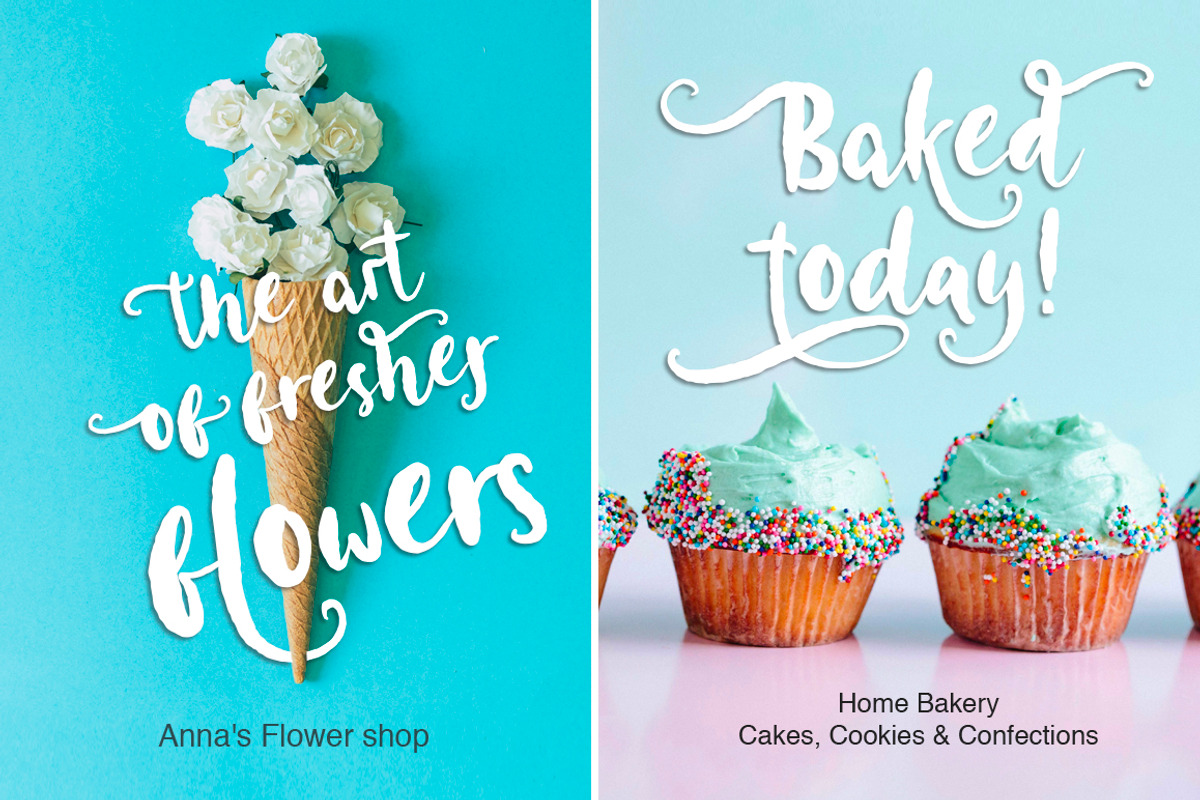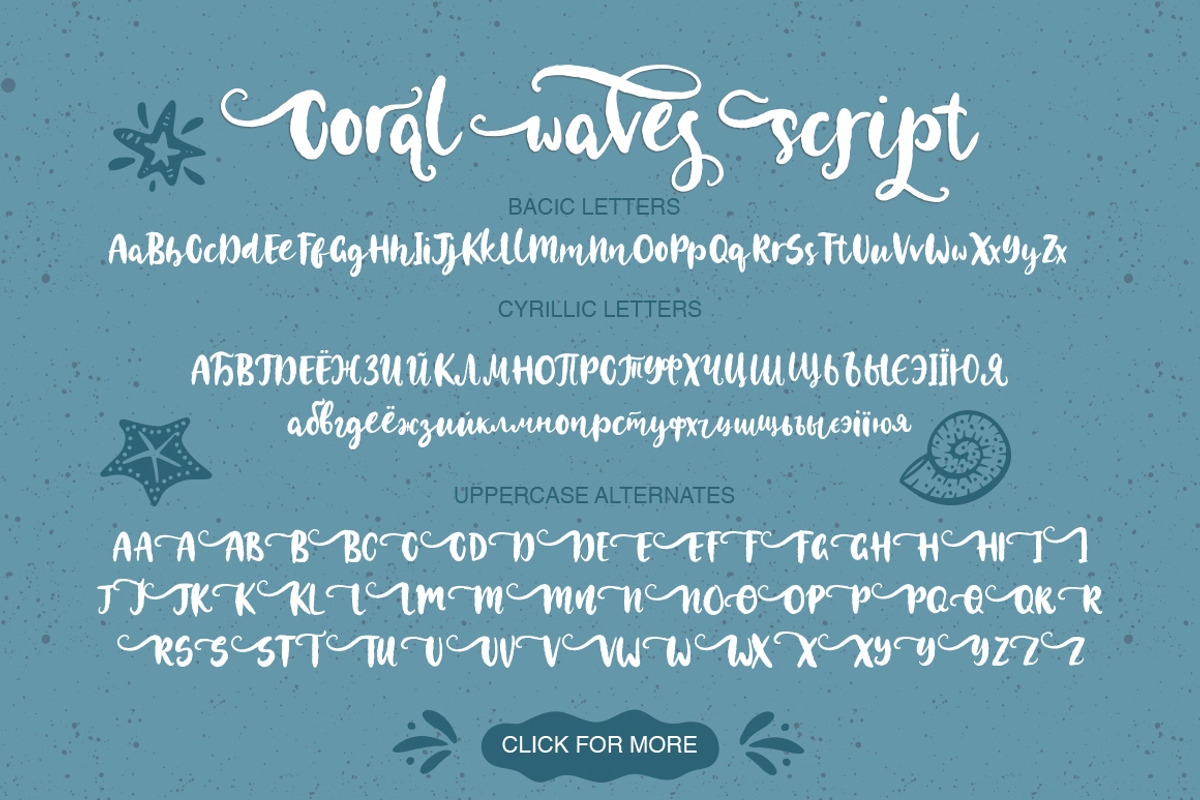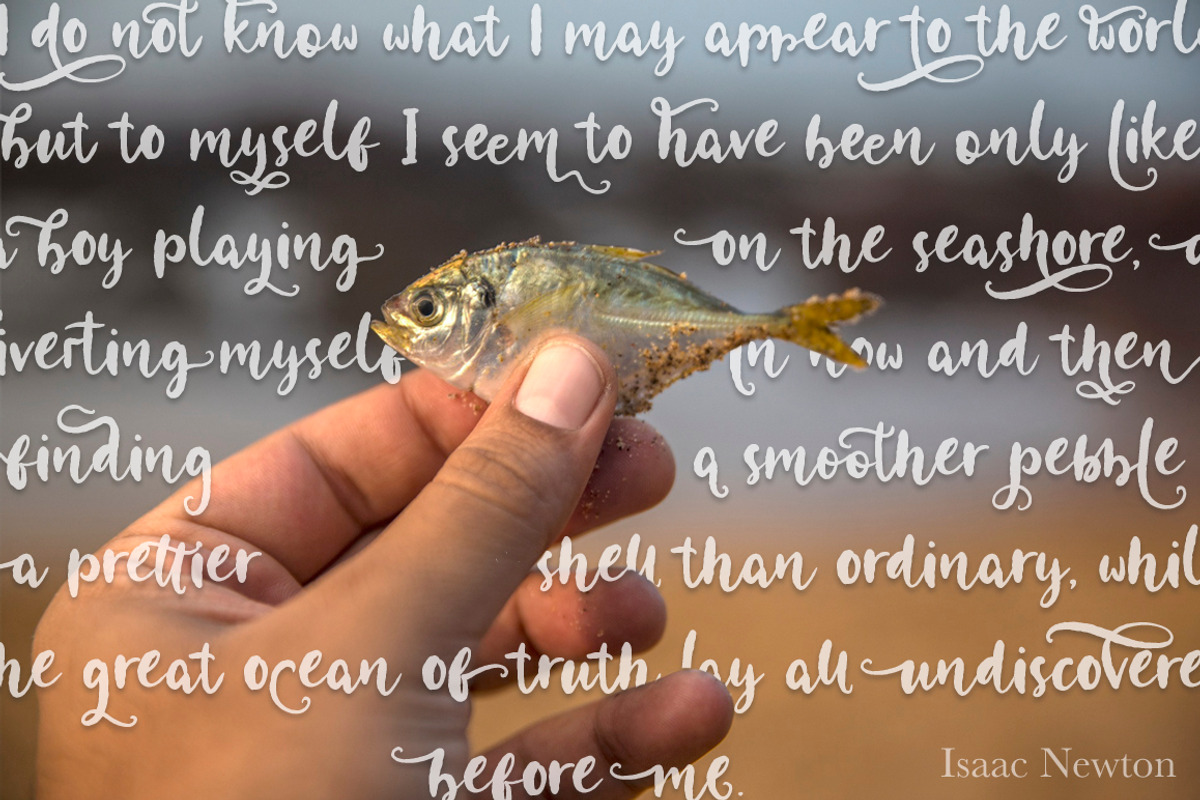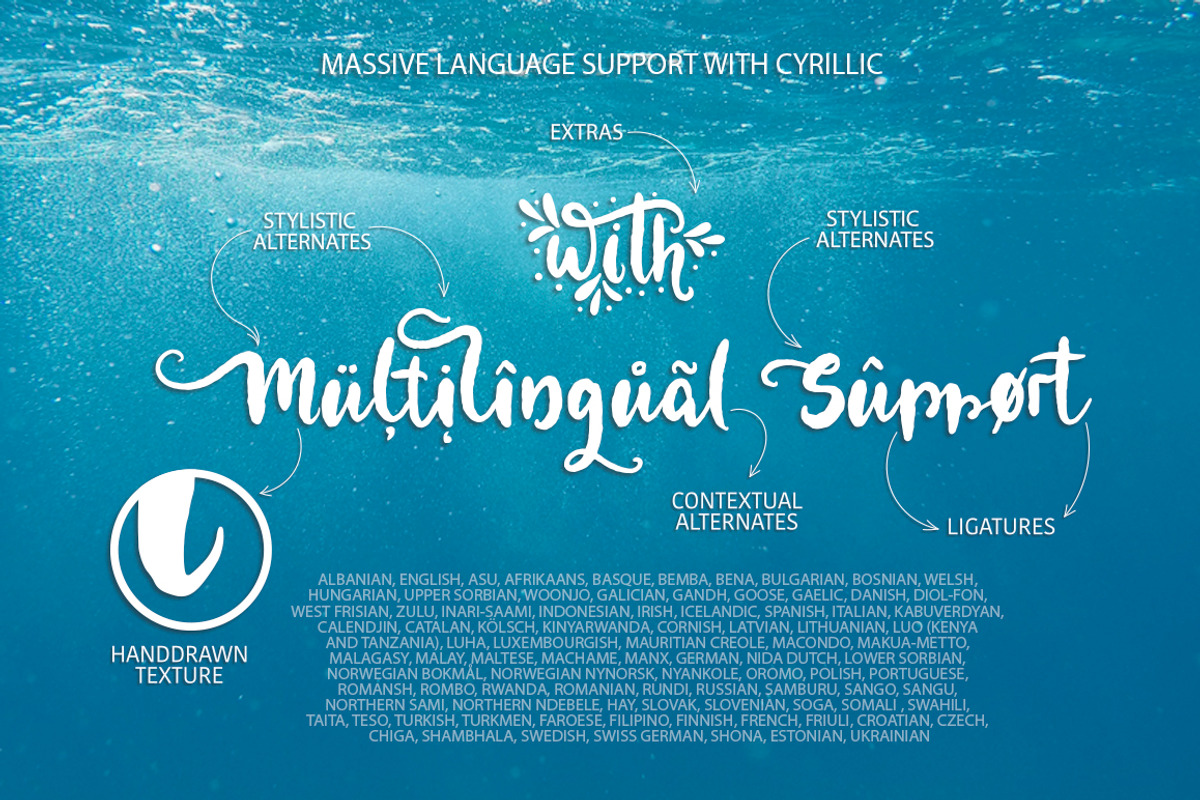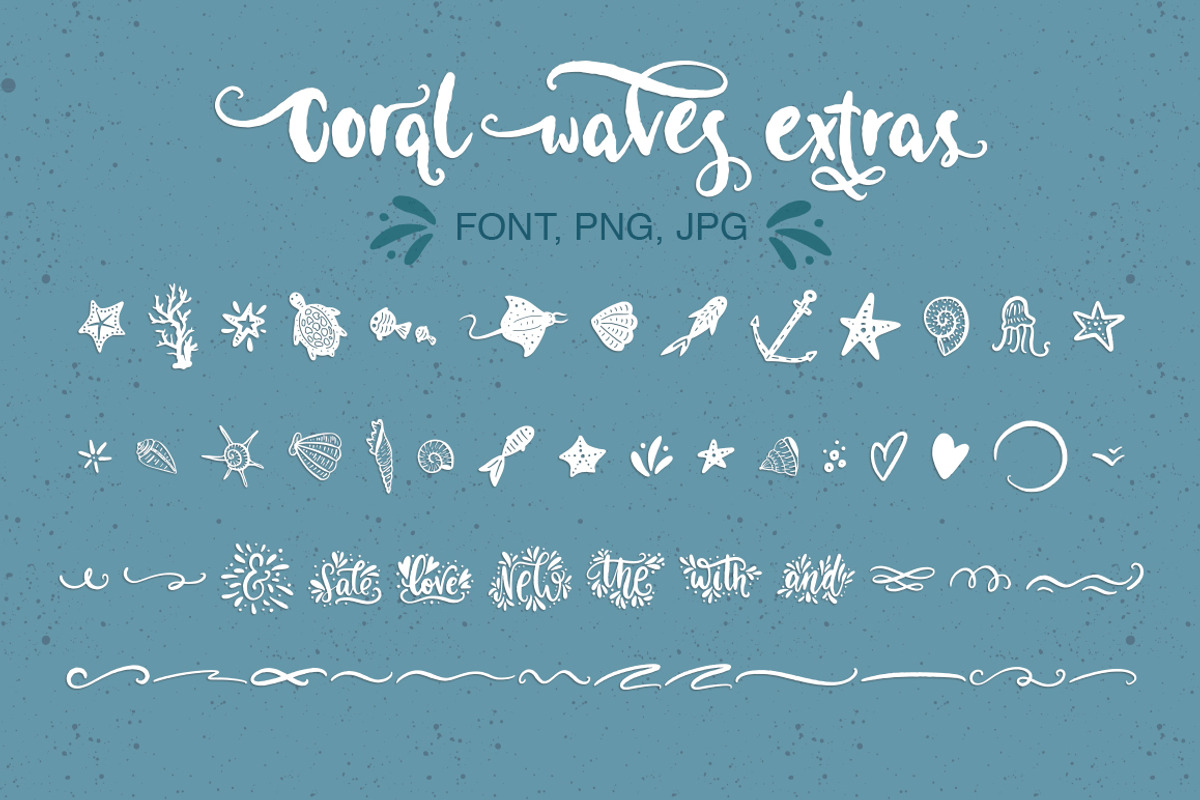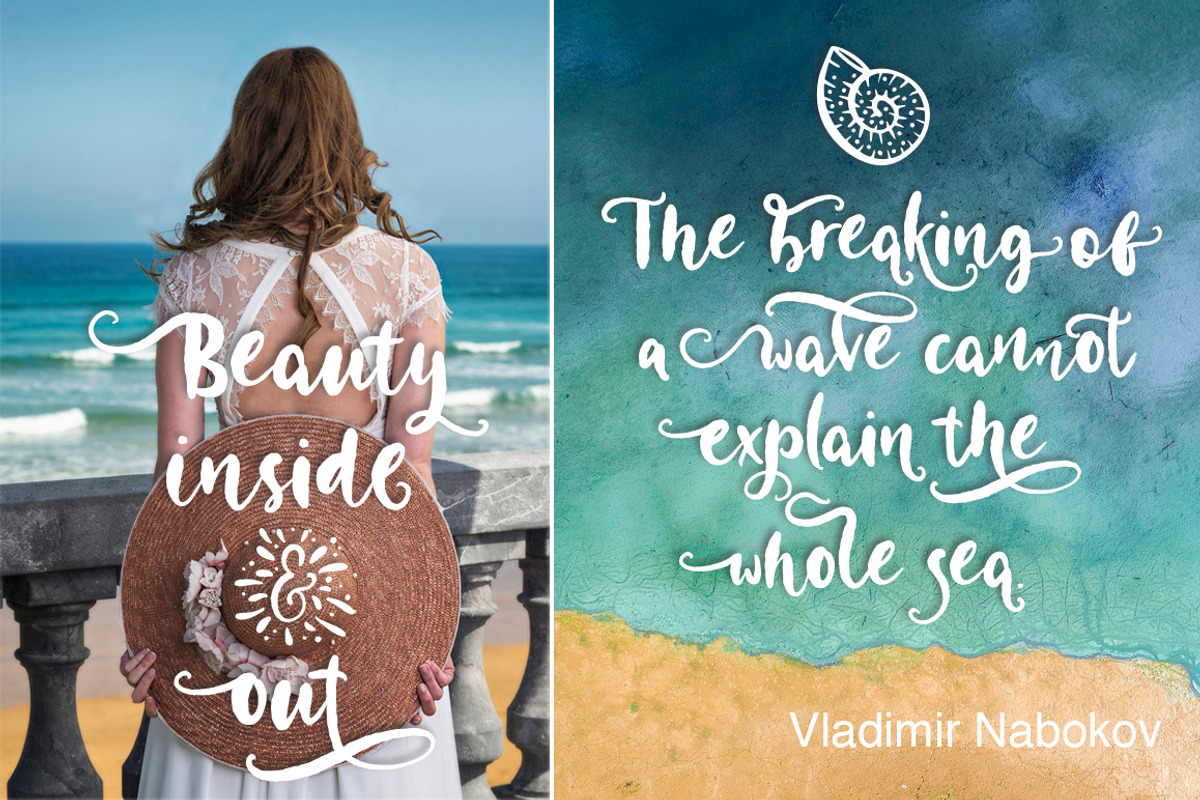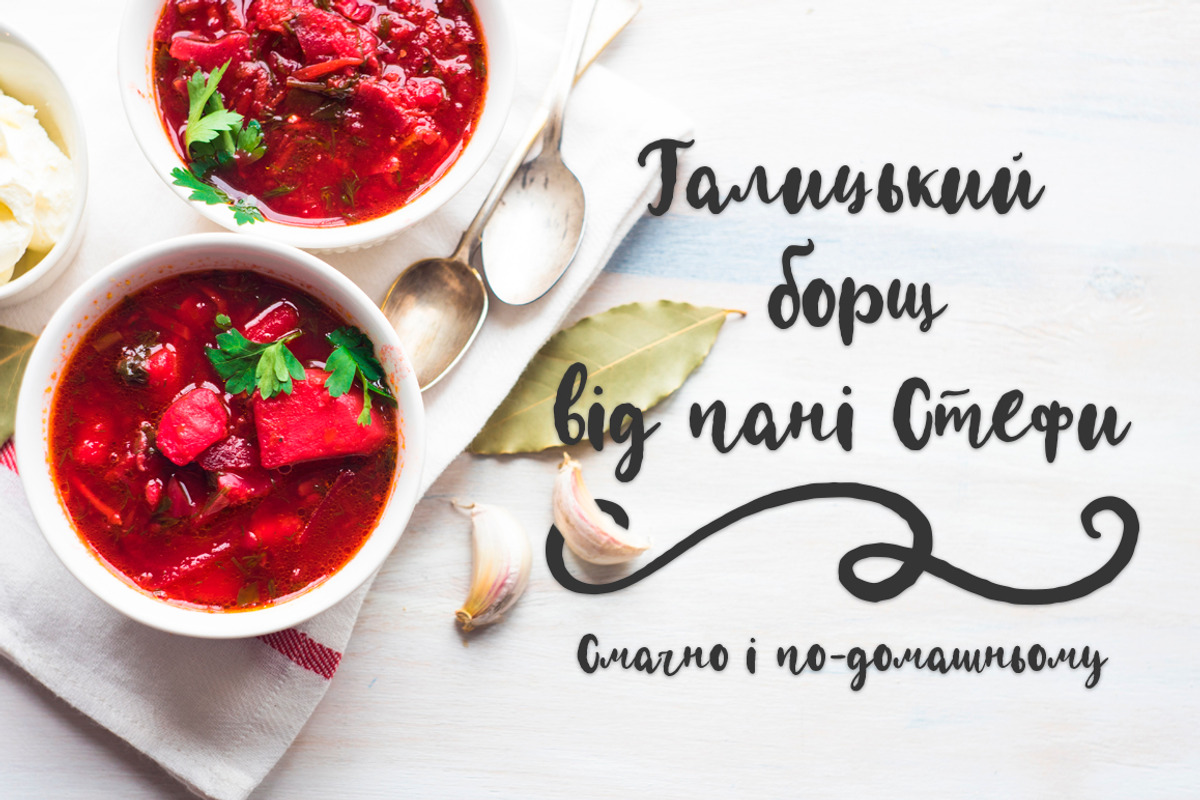
Coral waves. Font and clip arts.
π³ Coral Waves Collection β 2 fonts, 102 clip arts, 10 lettering cards, 52 extras & 5 patterns. π³
Mix & match clipart illustrations, lettering, extras and patterns with font to create amazing designs, like greeting cards, t-shirts, posters, mugs, branding materials, and any other projects you are working on.
Coral Waves is a beautiful script font with handdrawn texture and lots of OTF.
3 variants of alternate letters for the uppercase and 6 variants of alternate letters for the lowercase, make this font an unique tool for creating handdrawn texts, richly decorated with swashes.
You can still use the Glyphs panel. Youβll see there 234 contextual and stylistic alternate glyphs and 20 ligatures.
Font includes multilingual Cyrillic and Latin support. More than 90 languages are included: Western European, Central European and South Eastern European languages. Also included are Russian and Ukrainian languages. Please type characters in text box below to check any characters you need.
Coral Waves font - with extensive language support and lots of OTF;
Coral Waves extra font - with 52 extras with sea decor, separate words and swashes;